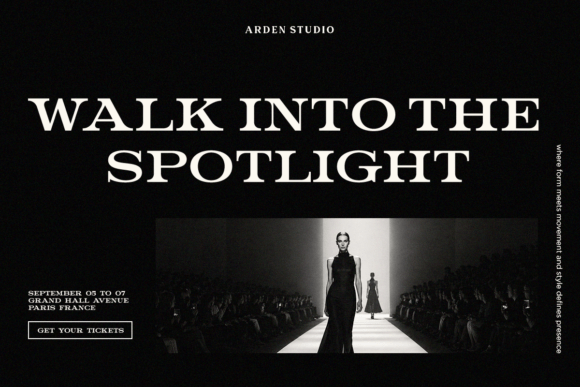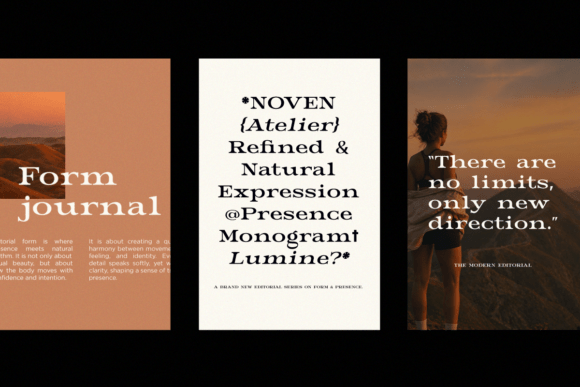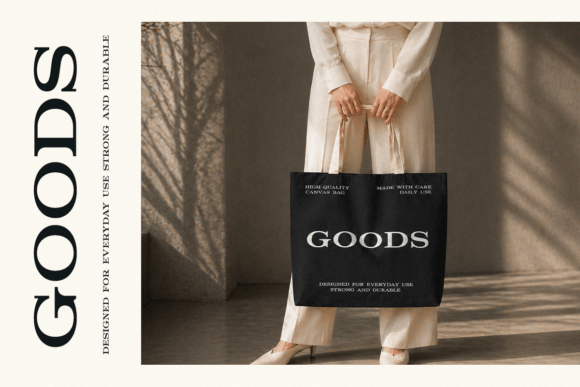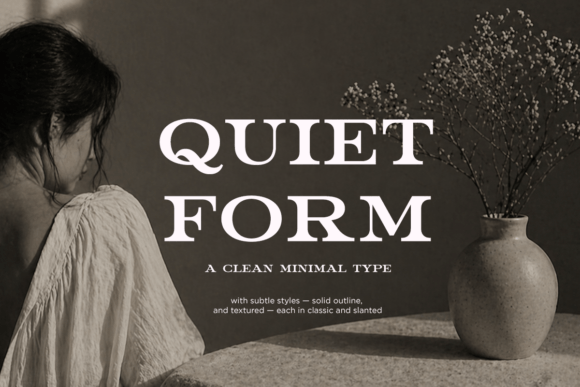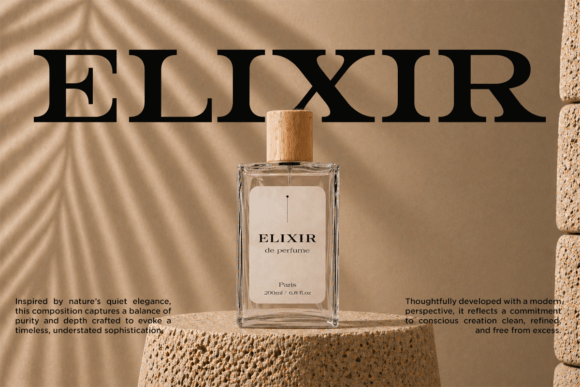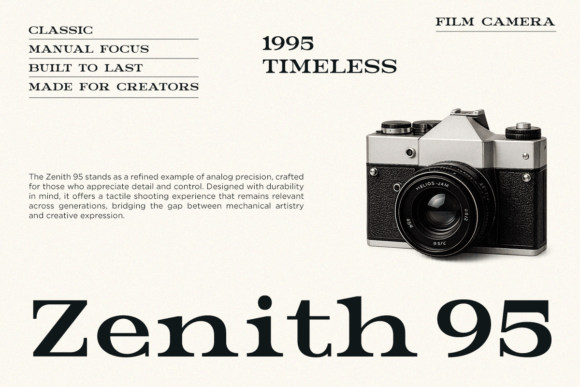
Command the Creative Narrative with Best Remind: The Pinnacle of Editorial Serif Typography
In the realm of typography, few fonts manage to convey the essence of luxury, sophistication, and high-end style as effectively as Best Remind. This exquisite editorial serif typeface is a masterful blend of classic elegance and modern refinement, making it an ideal choice for designers and crafters seeking to elevate their creative projects. With its heavy, blocky stems contrasted sharply against refined hairline bars and delicate transitional bracketed serifs, Best Remind embodies the very essence of timeless high-fashion typography.
A Study in Contrasts: The Unique Aesthetic of Best Remind
One of the defining characteristics of Best Remind is its striking contrast between heavy, blocky stems and refined hairline bars. This juxtaposition creates a sense of visual tension that adds depth, complexity, and sophistication to any design. The delicate transitional bracketed serifs further enhance the font’s elegance, imbuing it with a sense of refinement and luxury. The result is a typographic experience that exudes established luxury and commanding prestige.
Engineered for Excellence: Features and Capabilities
Best Remind is more than just a visually stunning font; it’s also engineered with a range of features that make it incredibly versatile and practical. With full multilingual support, an italic companion variant, and a library of 226 glyphs, designers have the tools they need to bring their creative visions to life. Whether working on high-end corporate identity branding, modern cinematic poster designs, luxury watch packaging, or sophisticated haute-couture editorial covers, Best Remind provides the flexibility and range needed to achieve exceptional results.
Applications and Use Cases: Where Best Remind Excels
Best Remind’s unique blend of luxury, sophistication, and versatility makes it an extraordinary choice for a wide range of applications. Some of the most notable use cases include:
- High-end corporate identity branding: Best Remind’s commanding presence and sense of established luxury make it an ideal choice for brands seeking to convey a sense of prestige and sophistication.
- Modern cinematic poster designs: The font’s bold, eye-catching aesthetic and wide letterforms make it perfect for creating striking poster designs that capture the imagination.
- Luxury watch packaging: Best Remind’s refined elegance and sense of high-end style make it an excellent choice for luxury watch packaging, where the goal is to convey a sense of exclusivity and refinement.
- Sophisticated haute-couture editorial covers: The font’s exquisite typography and sense of luxury make it a natural fit for haute-couture editorial covers, where the goal is to convey a sense of high-end style and sophistication.
Why Designers and Crafters Love Best Remind
So, why have designers and crafters fallen in love with Best Remind? The answer lies in its unique combination of aesthetic appeal, versatility, and practicality. Whether working on a high-end branding project or a creative editorial piece, Best Remind provides the tools and inspiration needed to elevate the design to new heights. Its ability to convey a sense of luxury, sophistication, and prestige makes it an invaluable asset for any designer or crafter seeking to create exceptional work.
Conclusion: Elevate Your Designs with Best Remind
In conclusion, Best Remind is a truly exceptional editorial serif typeface that offers a unique combination of aesthetic appeal, versatility, and practicality. With its striking contrasts, elegant serifs, and range of features, it’s an ideal choice for designers and crafters seeking to create high-end designs that command attention and inspire admiration. Whether working on corporate identity branding, cinematic poster designs, luxury packaging, or editorial covers, Best Remind is the perfect tool for elevating your creative narrative and achieving exceptional results.